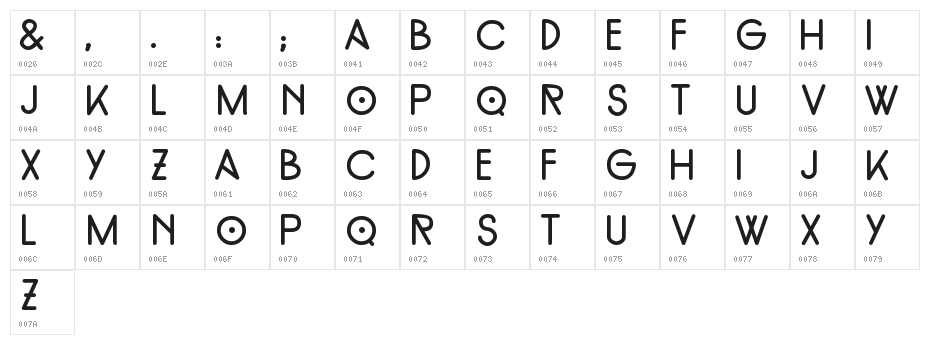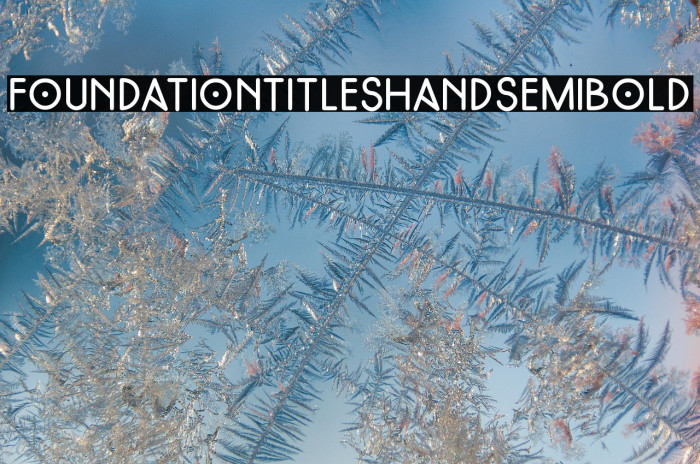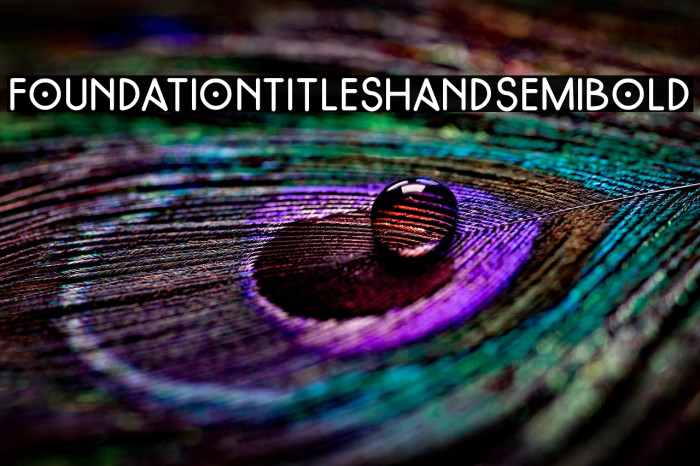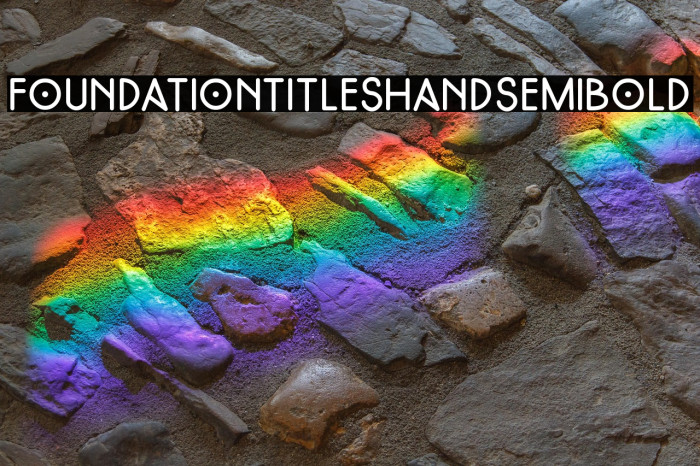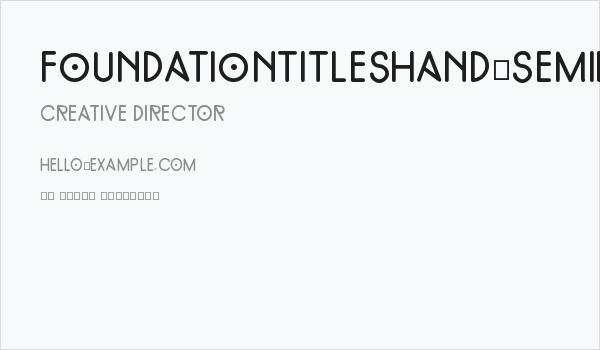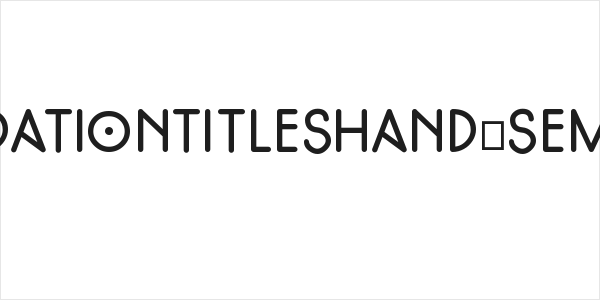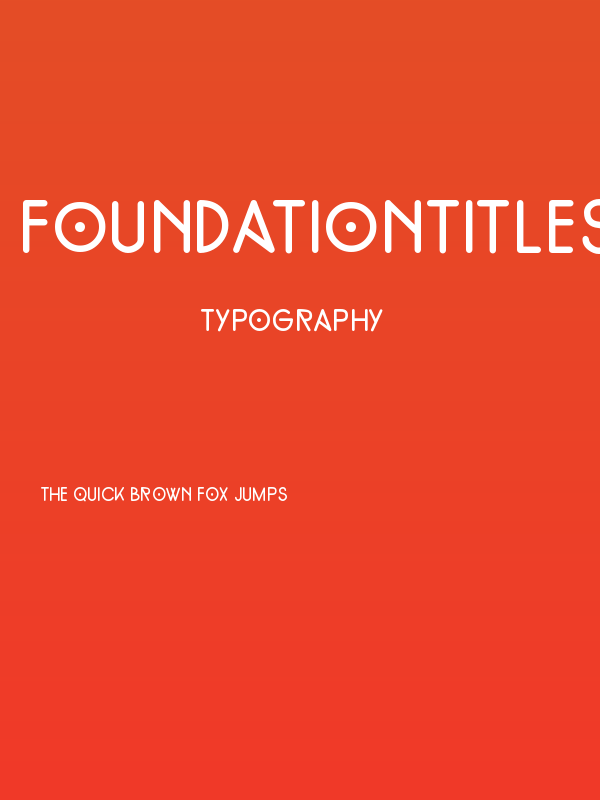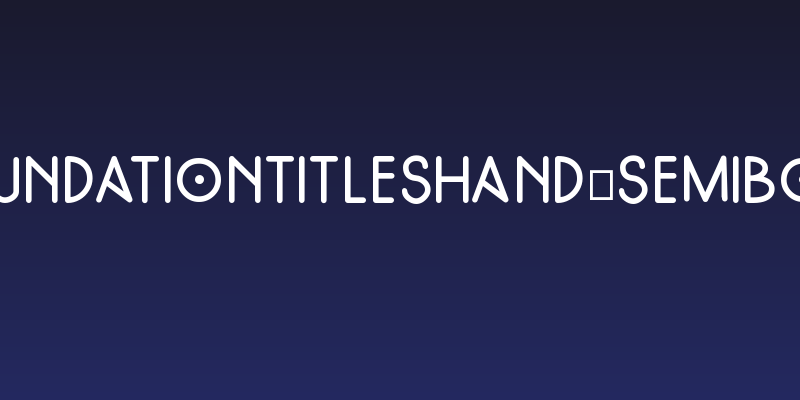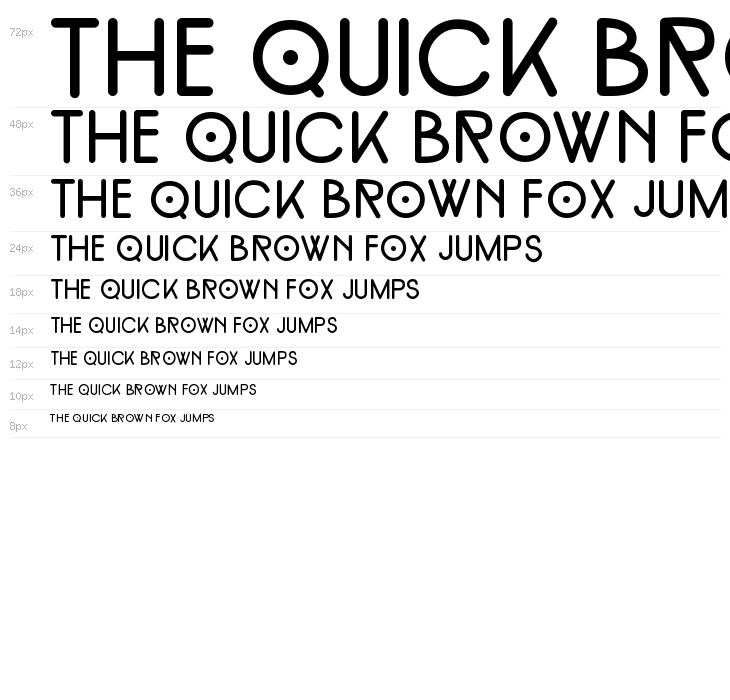
FoundationTitlesHand-SemiBold Font
FoundationTitlesHand-SemiBold Description
This font features a playful and modern design with a handwritten feel. The characters are bold and rounded, giving a friendly and approachable appearance. The uppercase letters are consistent in height, while the lowercase letters maintain a similar style, ensuring readability. The numbers are clear and distinct, matching the overall aesthetic. Special characters like the ampersand and period are creatively designed, adding to the font's unique charm. This font is ideal for projects that require a personal touch, such as invitations, greeting cards, or branding materials.